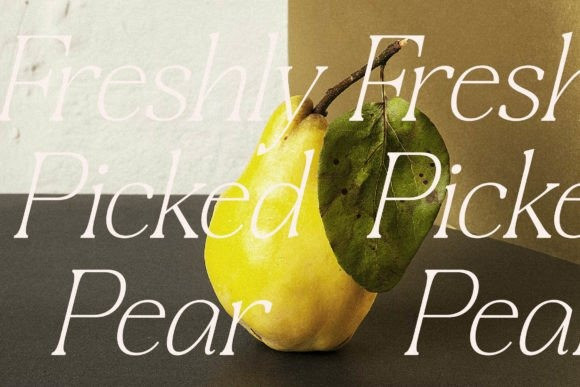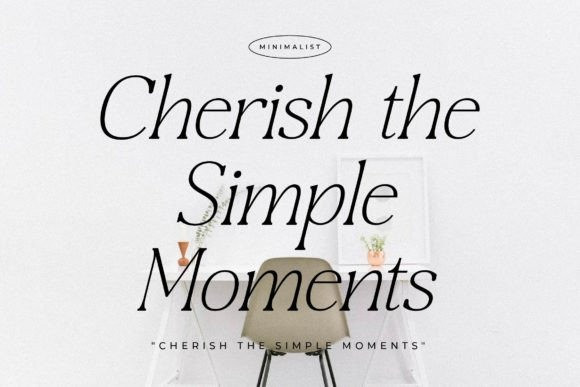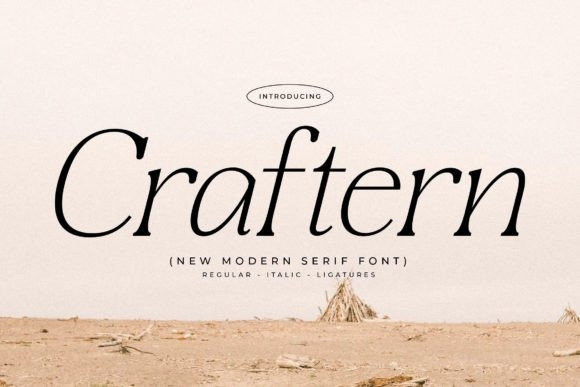
Craftern Font
Craftern Font is a modern and classic typeface that has its own unique style & modern look. It is perfect for an elegant & luxurious logo, book or movie title design, fashion brand, magazine, clothes, lettering, quotes, and so much more.